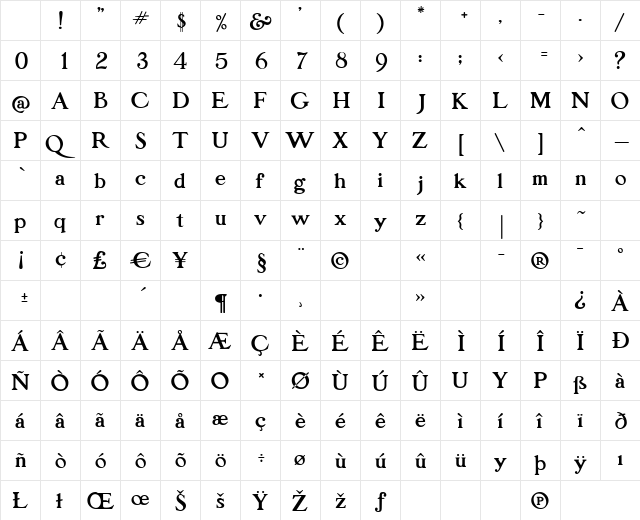
Complete P22Parrish Roman glyph index. Displaying only characters natively supported by P22Parrish Roman font.
P22Parrish is a composed and adaptable typeface that performs quietly and consistently across a wide range of design contexts.